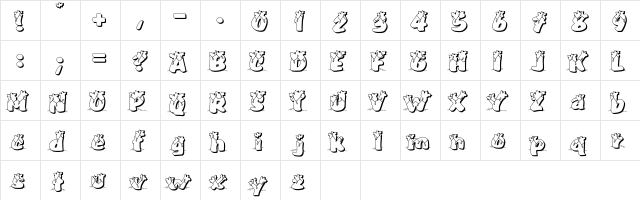
Pullstar-Holinight Font Preview
Pullstar-Holinight Holinight
Pullstar-Holinight Font Details
| Style | Holinight |
Design Context for Pullstar-Holinight Typeface
Pullstar-Holinight is a composed and adaptable typeface that performs quietly and consistently across a wide range of design contexts.